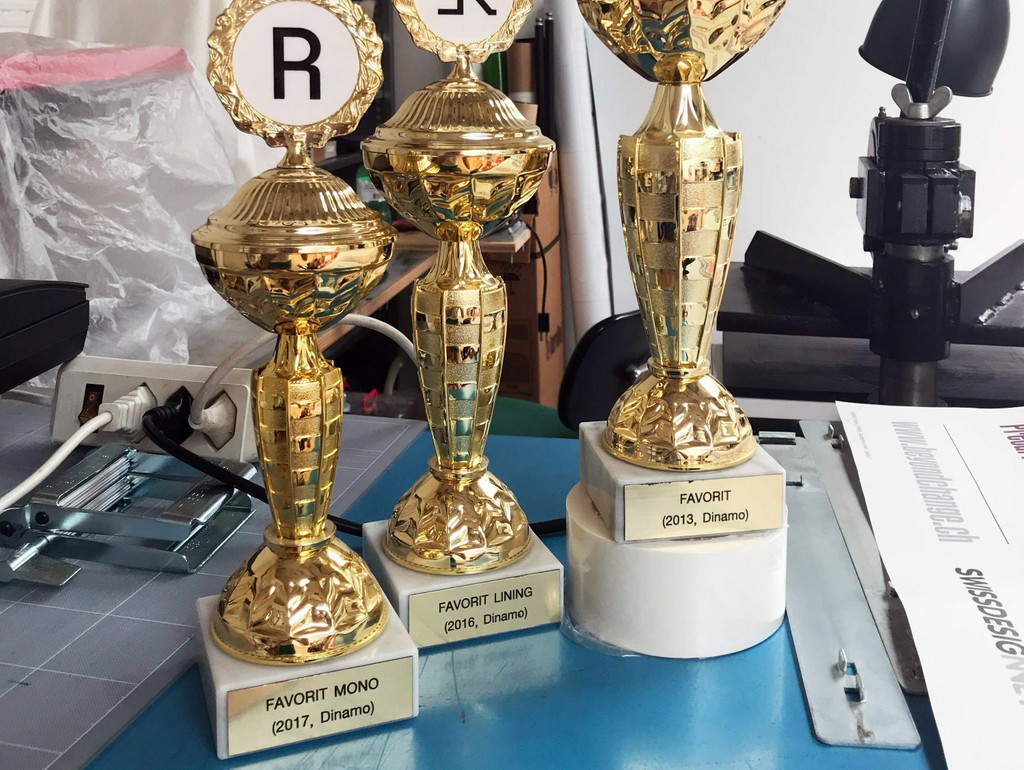
Favorit Cyrillic
Features
Bulgarian Localized Forms
Serbian & Macedonian Localized Forms
Alt ЖжКк & ф
Alternate Ampersand
Alternate at
Alternate ?
Alternate a & y
Alternate Capital R
Alternate Ampersand
Slashed Zero, Tabular Figures, Alt &
Oldstyle Figures
About Favorit Cyrillic
ABC Favorit is a straightforward, low-contrast grotesque that combines geometric rigidity with subtle oddities and a humorous touch. It’s available in five weights with corresponding italics, as well as a few special cuts and an underlined version, Favorit Lining. Additionally, there are the sub-families ABC Favorit Extended, ABC Favorit Expanded and the mono-spaced version ABC Favorit Mono.
ABC Favorit Lining is the younger yet much smarter brother of ABC Favorit, as it has its own “smart underline” built straight into the font. With this feature, all descending characters can be merged to create unconventional letter shapes. Unleash its Connected mode, and the initial and final characters of individual words are conjoined by an extreme underline. ABC Favorit Lining is available in five weights with corresponding Italics.
Latin Design: Dinamo (Johannes Breyer & Fabian Harb, with Erkin Karamemet and Immo Schneider)
Cyrillic: Contrast Foundry (Maria Doreuli)
Spacing and Kerning: Igino Marini
Production: Dinamo (Renan Rosatti)